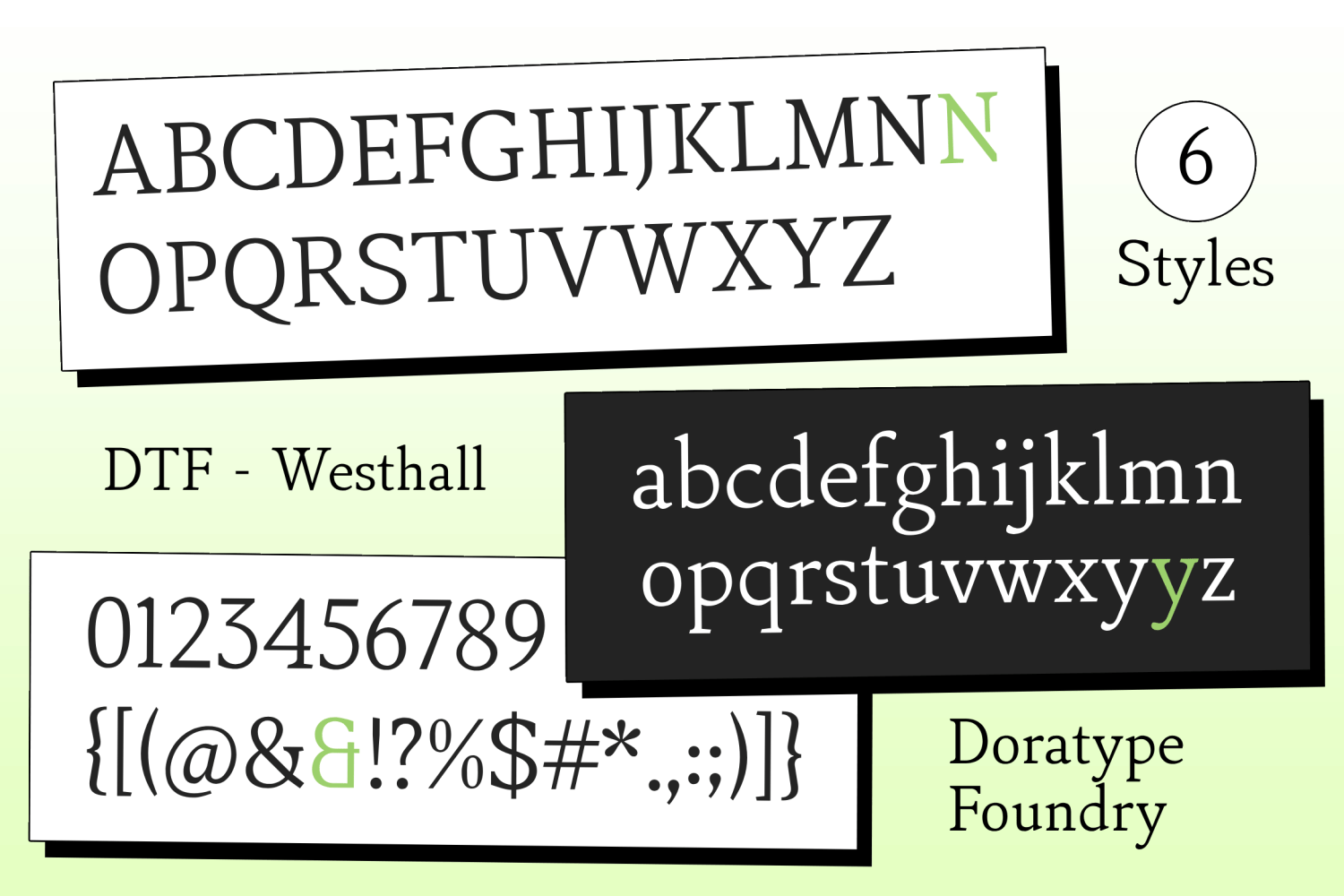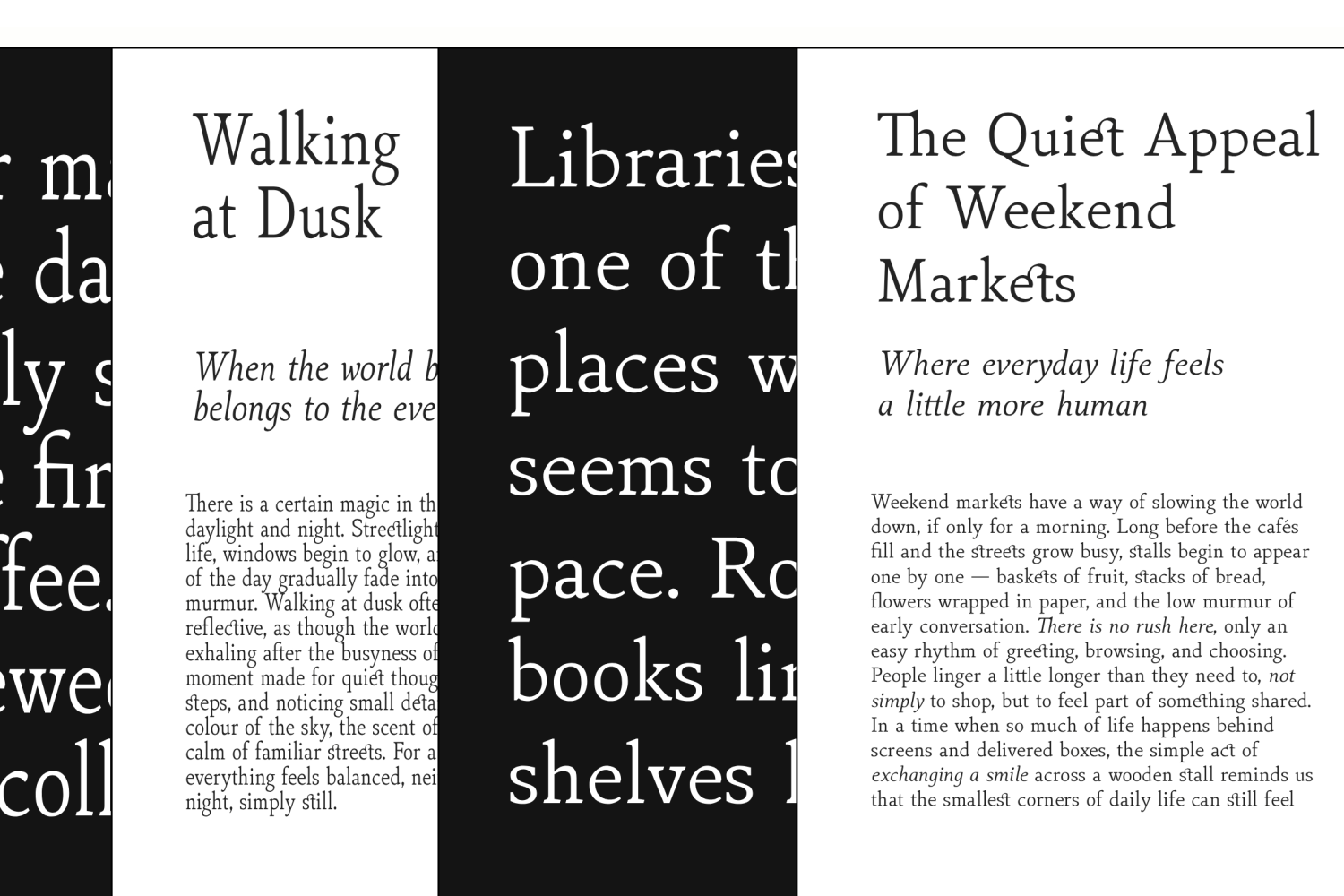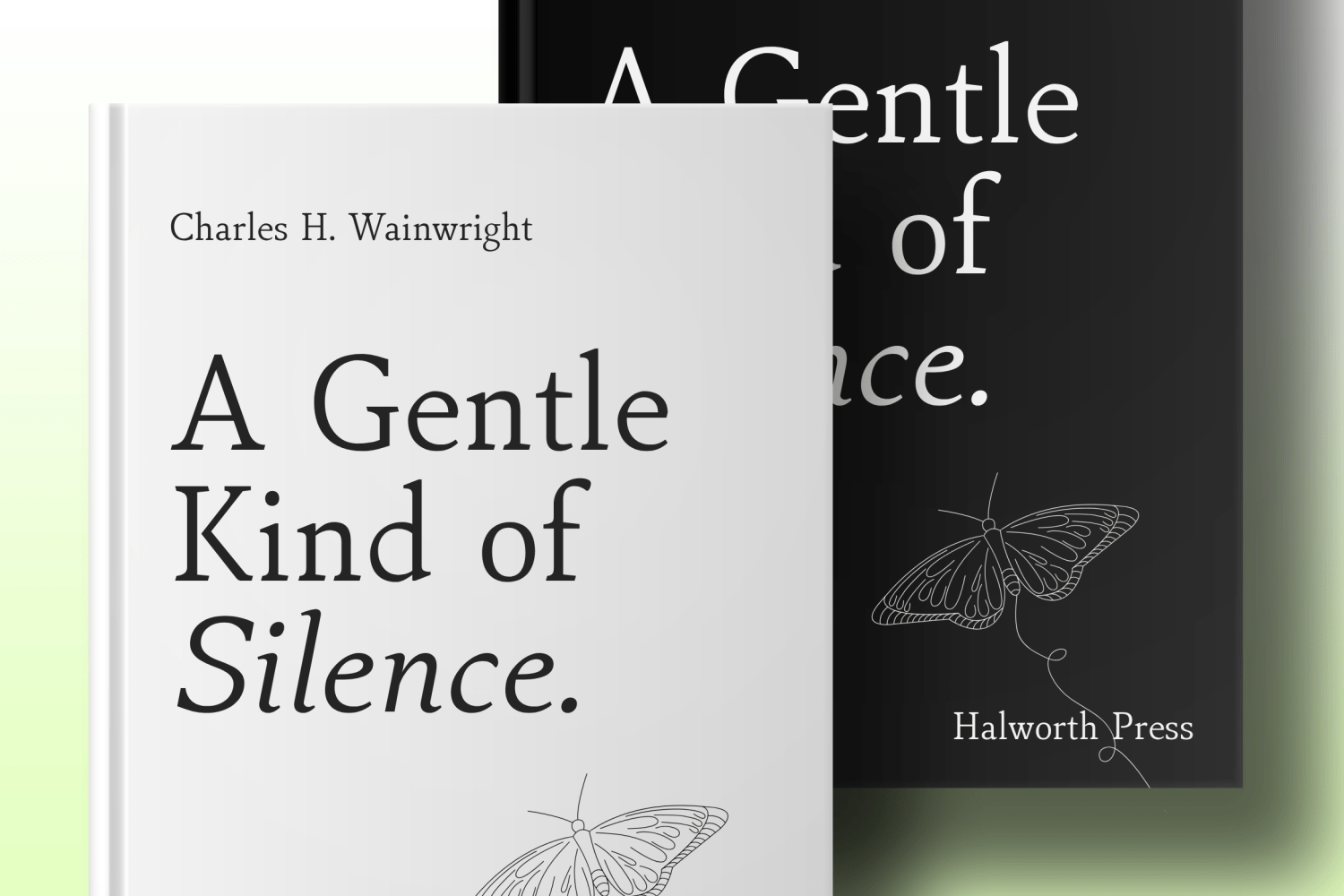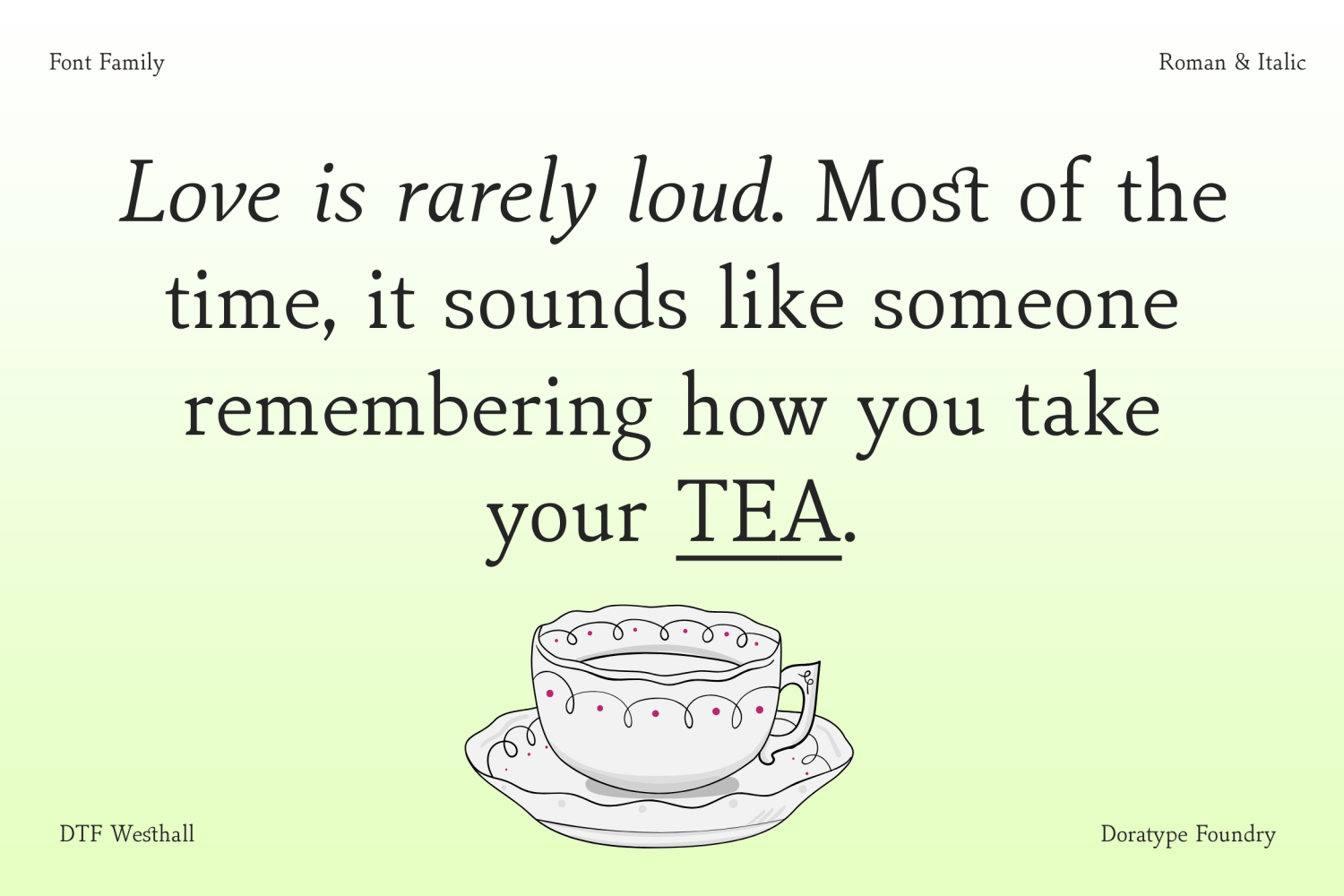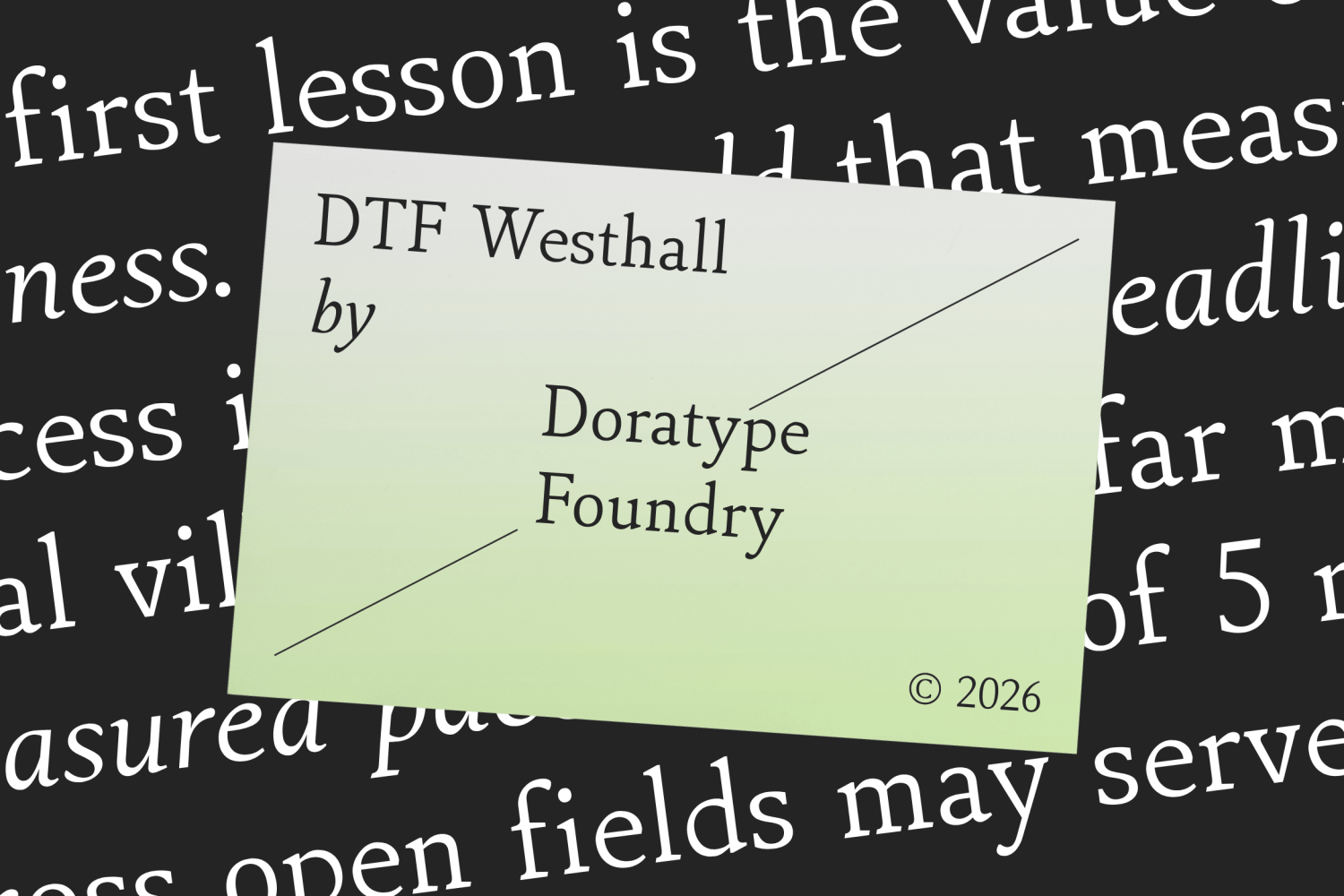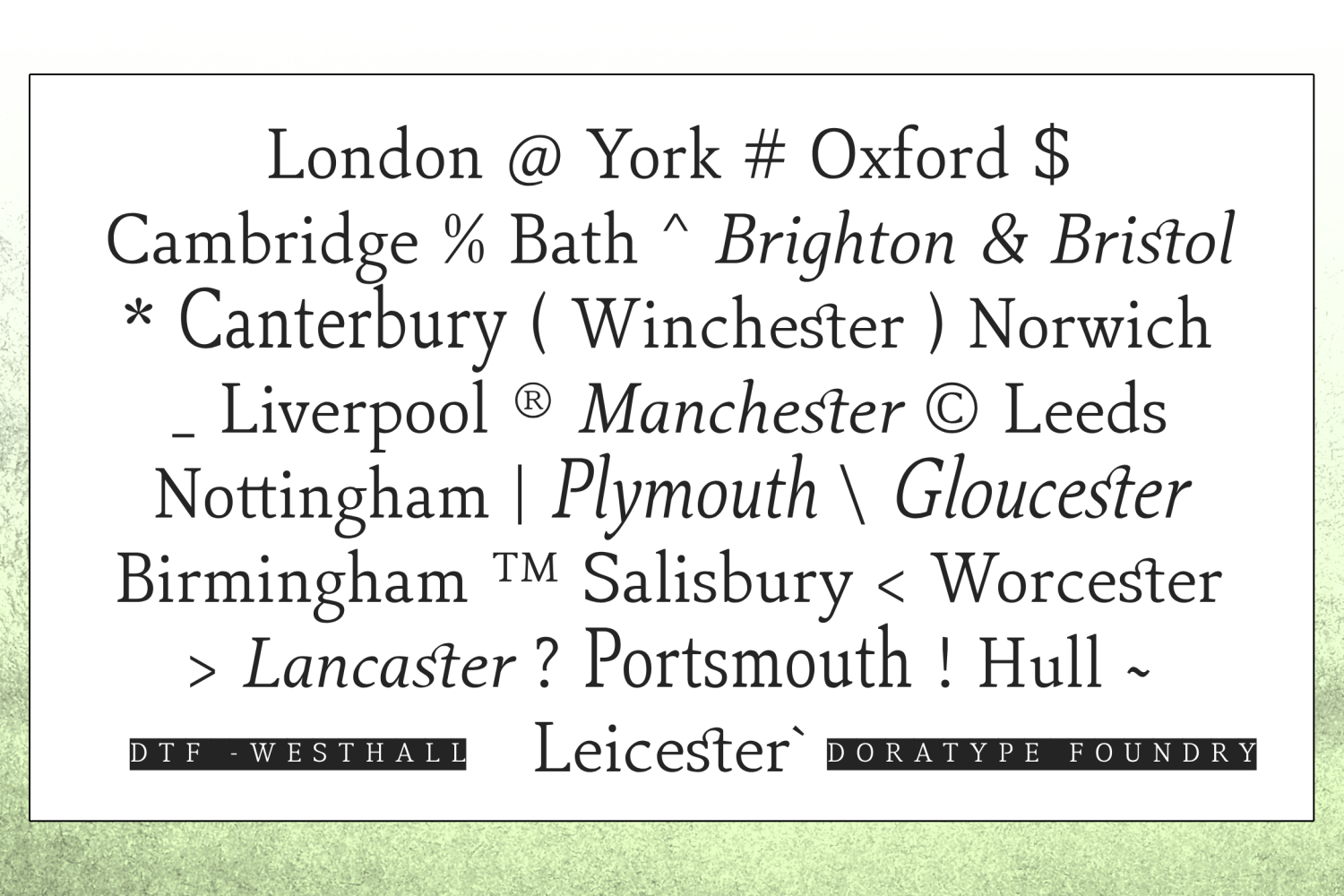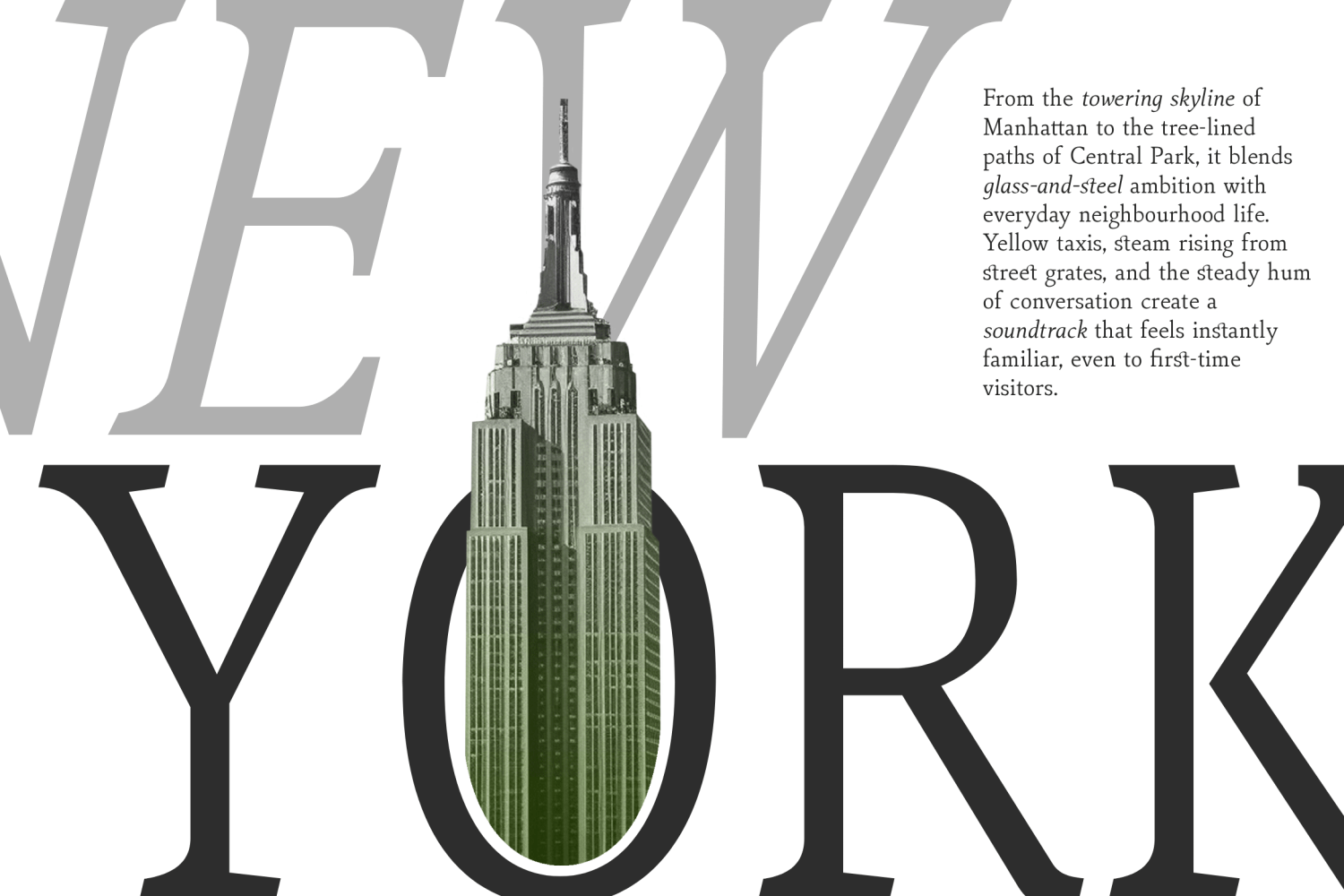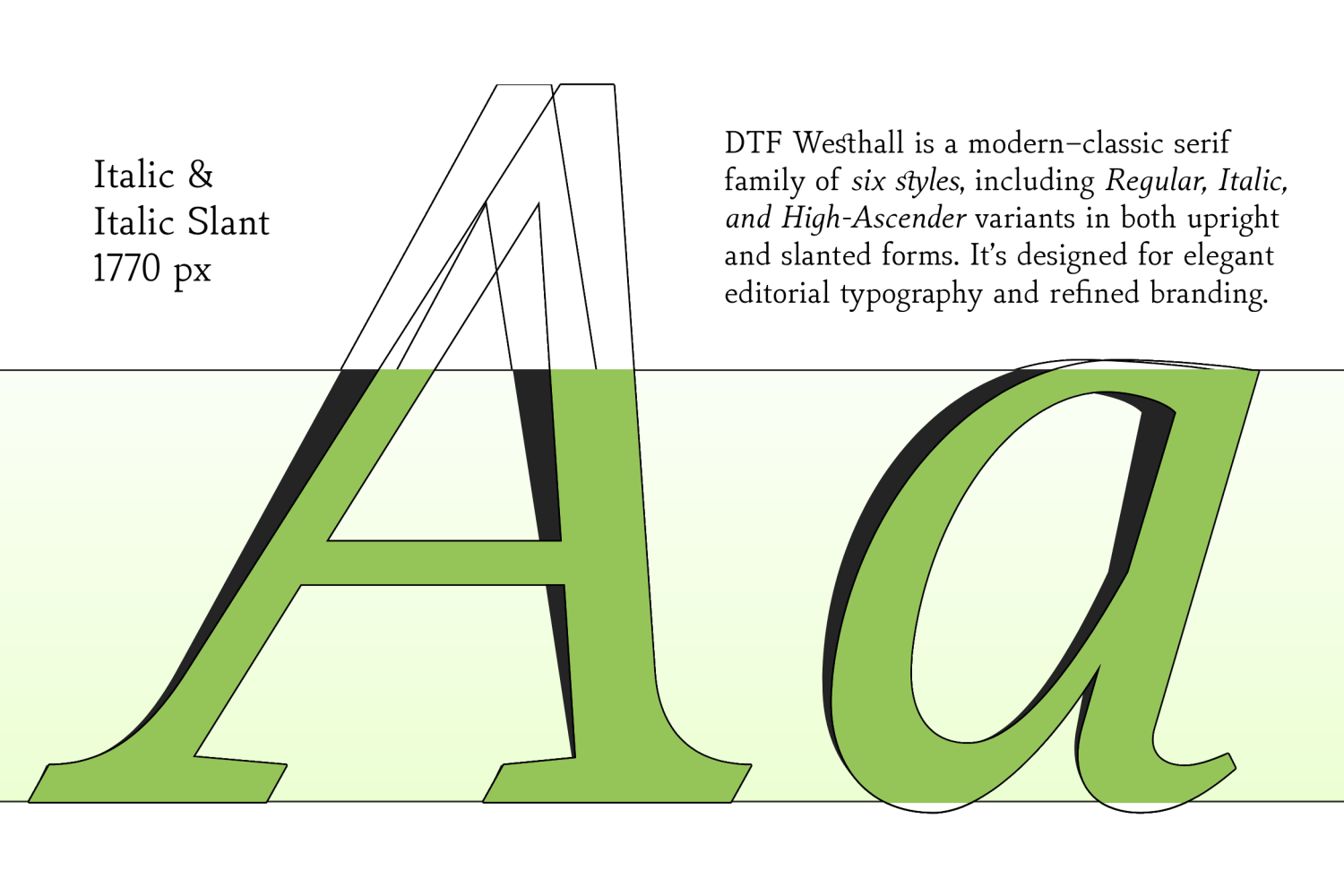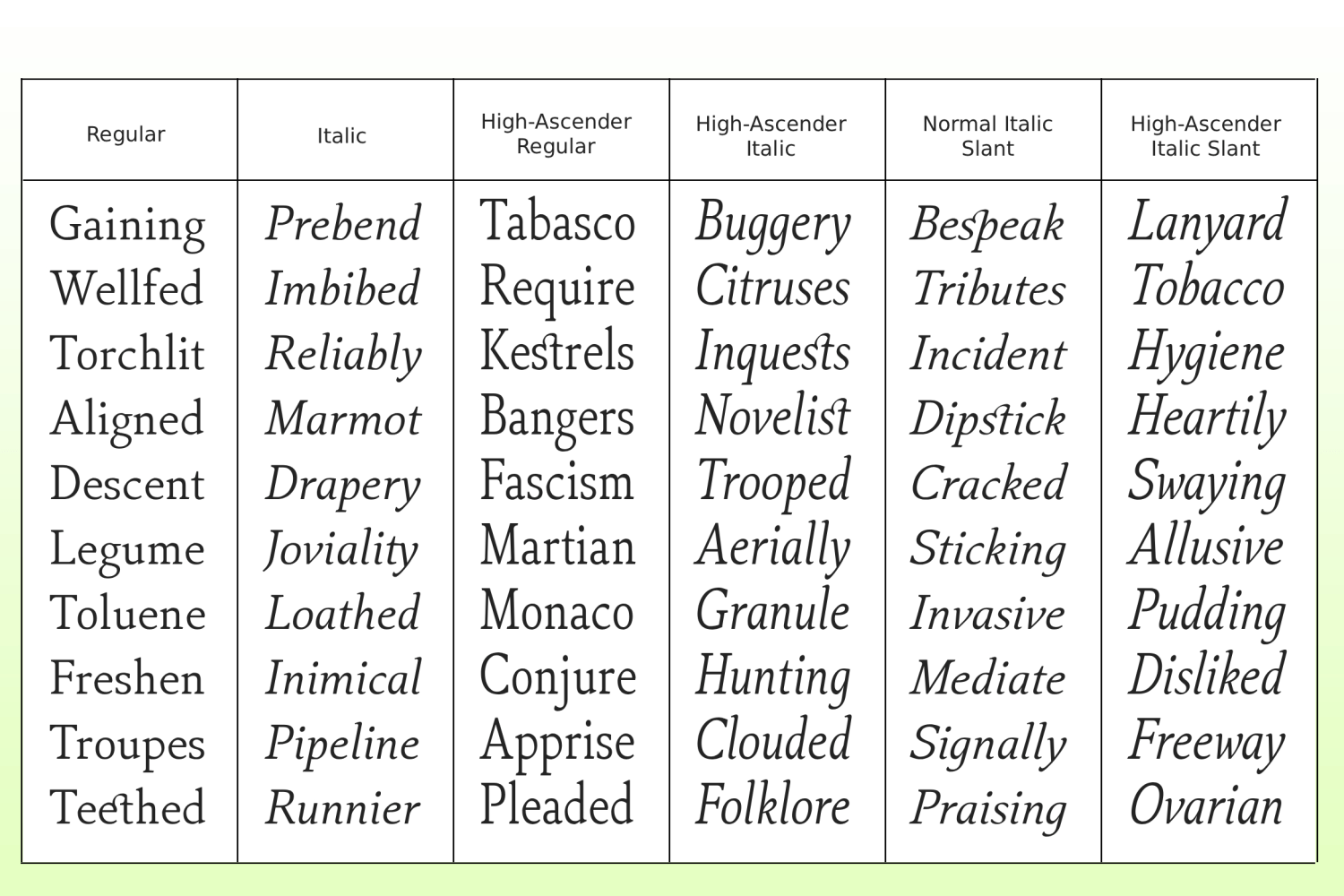
Westhall
This font features classic serif characters with graceful proportions and a controlled letter structure, strongly inspired by European typographic traditions. The serifs are subtle yet bold, with a moderate contrast between thick and thin stems, creating a sense of authority without feeling stiff. The tall ascenders in some variants reinforce the vertical rhythm and convey an intellectual and literary feel, as if designed for high-quality historical, academic, or editorial texts.
The italic and italic slant variants of this font exhibit fluid and expressive movement, with elegant slants and natural-feeling terminal strokes. The combination of stable regular and dynamic italic styles creates broad visual flexibility, suitable for both extended use and typographic emphasis. Overall, this font exudes a sense of maturity, rootedness, and culture—a perfect choice for designs seeking to emphasize authority, tradition, and refined taste.